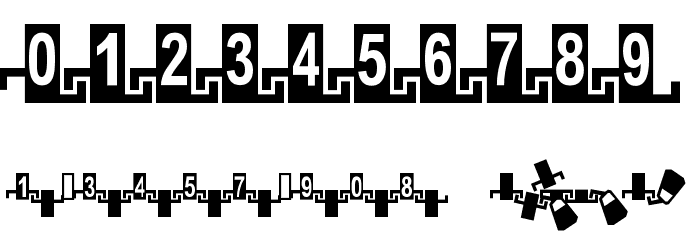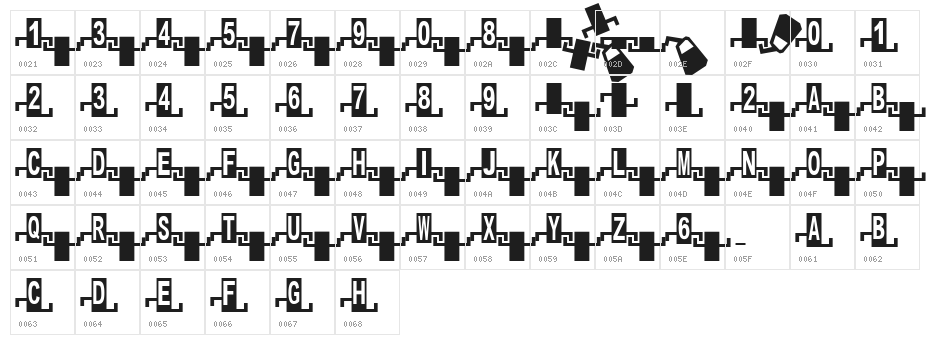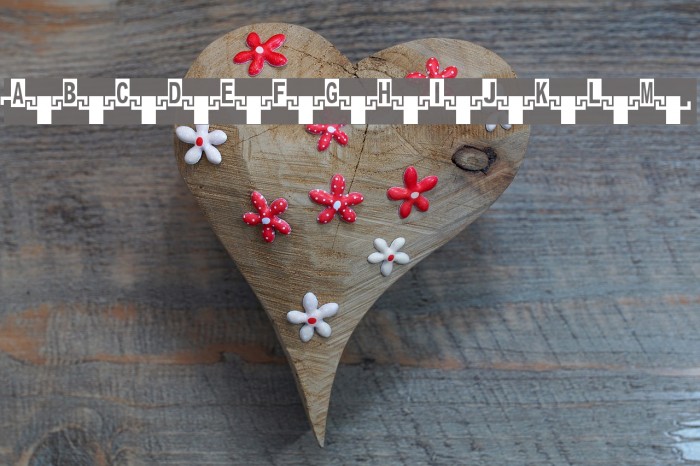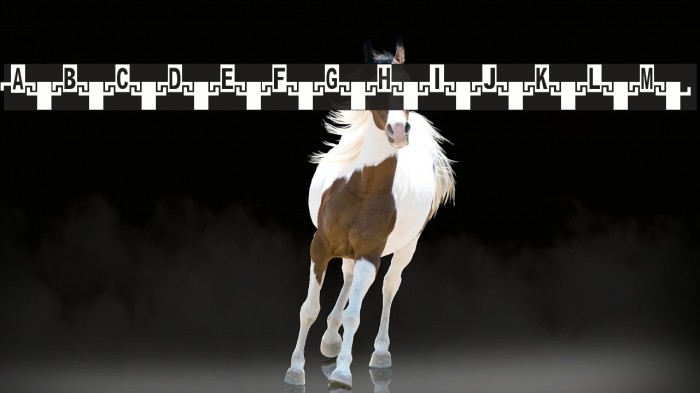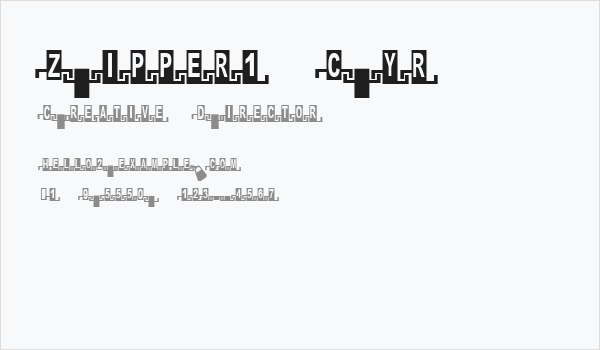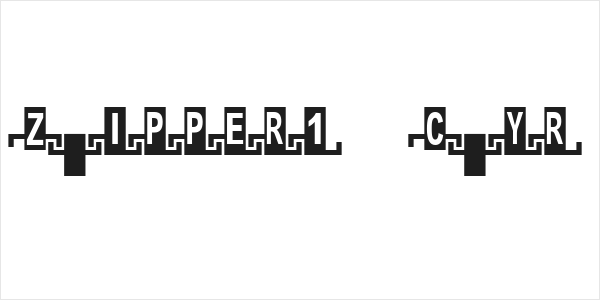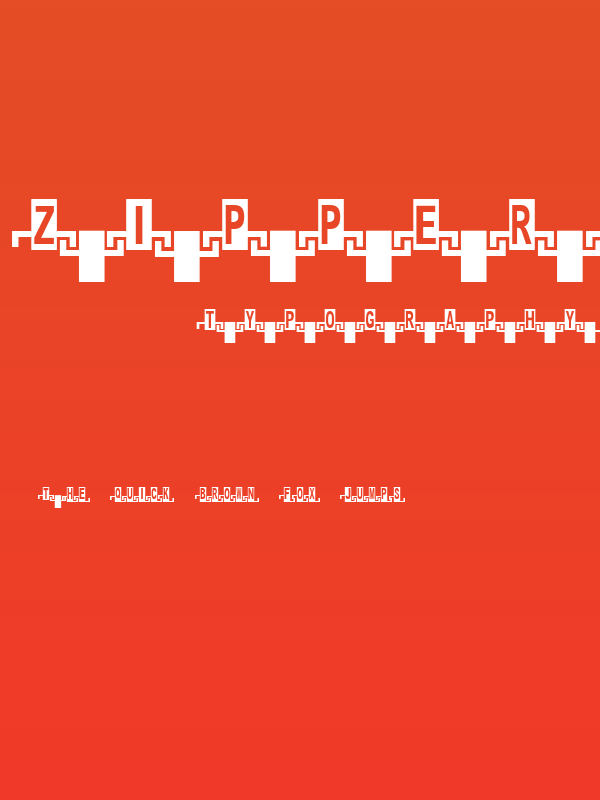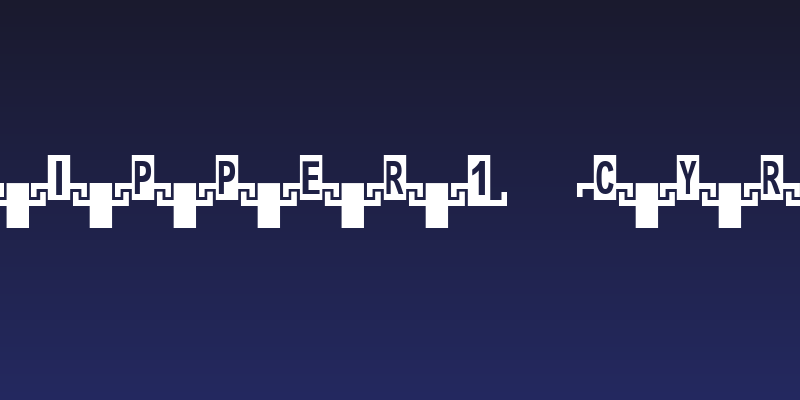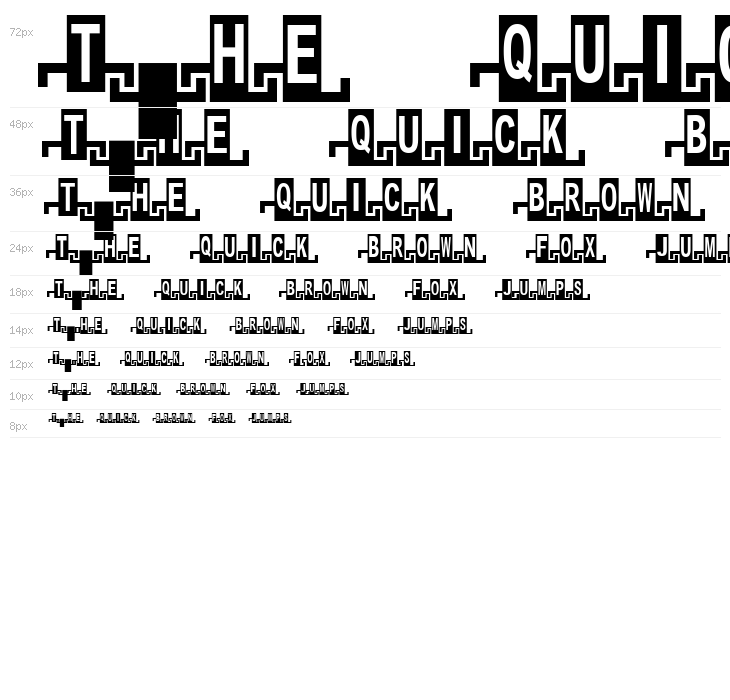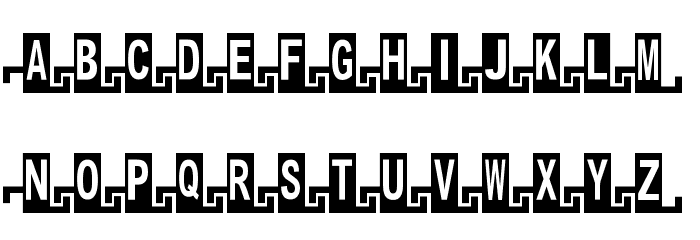
Zipper1 Cyr Font
Zipper1 Cyr Description
This font features a unique and playful design, reminiscent of a zipper mechanism. Each character is encased in a rectangular block with a zipper-like pattern running through it, creating a distinctive and eye-catching appearance. The uppercase letters are bold and prominent, while the numbers and special characters maintain the same thematic style. The font's design is highly decorative, making it suitable for creative and unconventional projects. Its boldness and strong visual impact make it ideal for attention-grabbing headlines or logos.
| Proposed Projects | Ideal for creative projects such as posters, logos, and branding materials that require a unique and playful touch. |